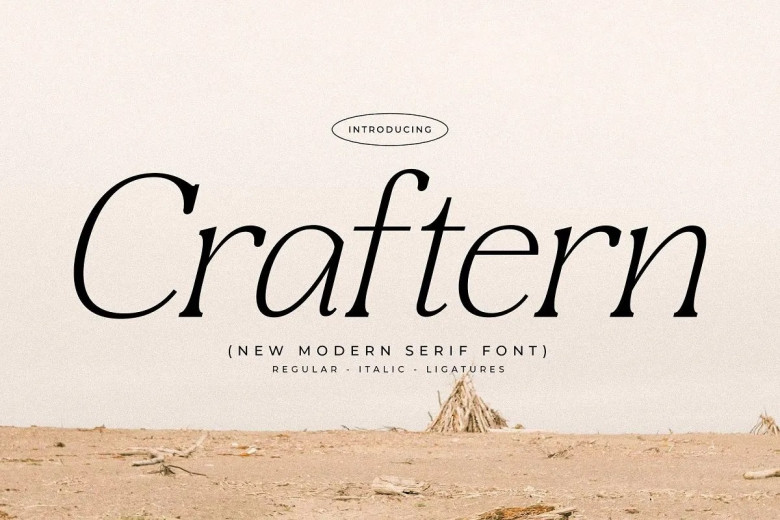
Craftern Font
Craftern offers an eye-catching modern style, drawing inspiration from classic serif typeface. Perfect for an elegant and luxurious logo, book or movie title, fashion brand logo, clothing brand logos, letters and quotes etc.
Craftern Serif Font